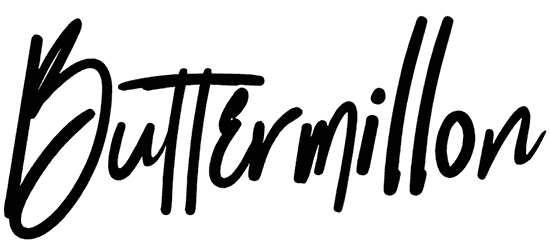
Buttermillon Font
Your typography will be if they are combined with a sweet handwritten font like Buttermillon. Its twirly and friendly arrangement can satisfy any viewer to draw on it more in any poster, greeting cards, invitations, cartoons, girly apparel design, and other creative displays despite being challenging to read, especially in small dimensions.
This font retains a classy calligraphic influence while feeling contemporary and fresh. This versatility will attract a wide range of creative ideas, from letterheads and titles to stationery.